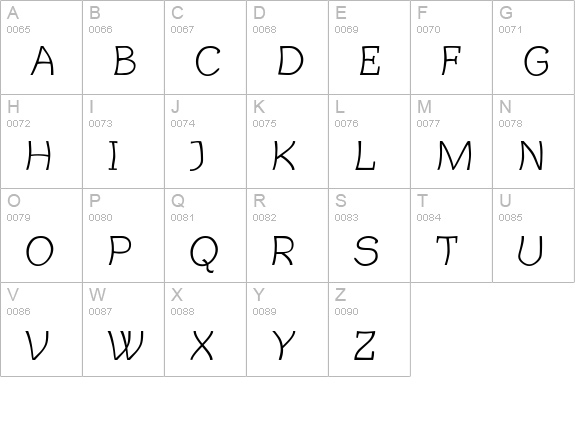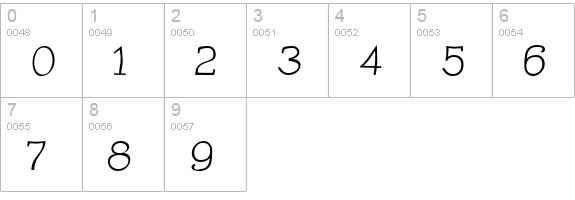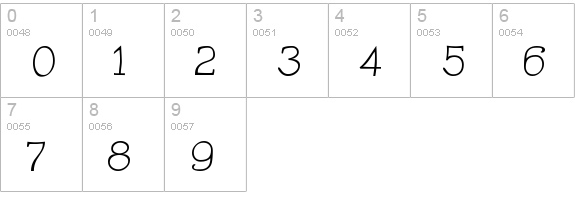
DrivEddie Font Details
DrivEddie font is a sleek and modern typeface that exudes a sense of speed and motion, making it perfect for projects related to automotive, technology, and sports. With its bold and dynamic appearance, DrivEddie is sure to make a statement in any design. This versatile font can be used for various purposes, from logos and branding to headlines and posters. The best part about DrivEddie font is that it is completely free to download at FontsMarket.com. This means that you can easily access this high-quality typeface without any cost, making it a valuable addition to your font collection. Don't miss out on the opportunity to enhance your designs with the powerful and eye-catching DrivEddie font today!